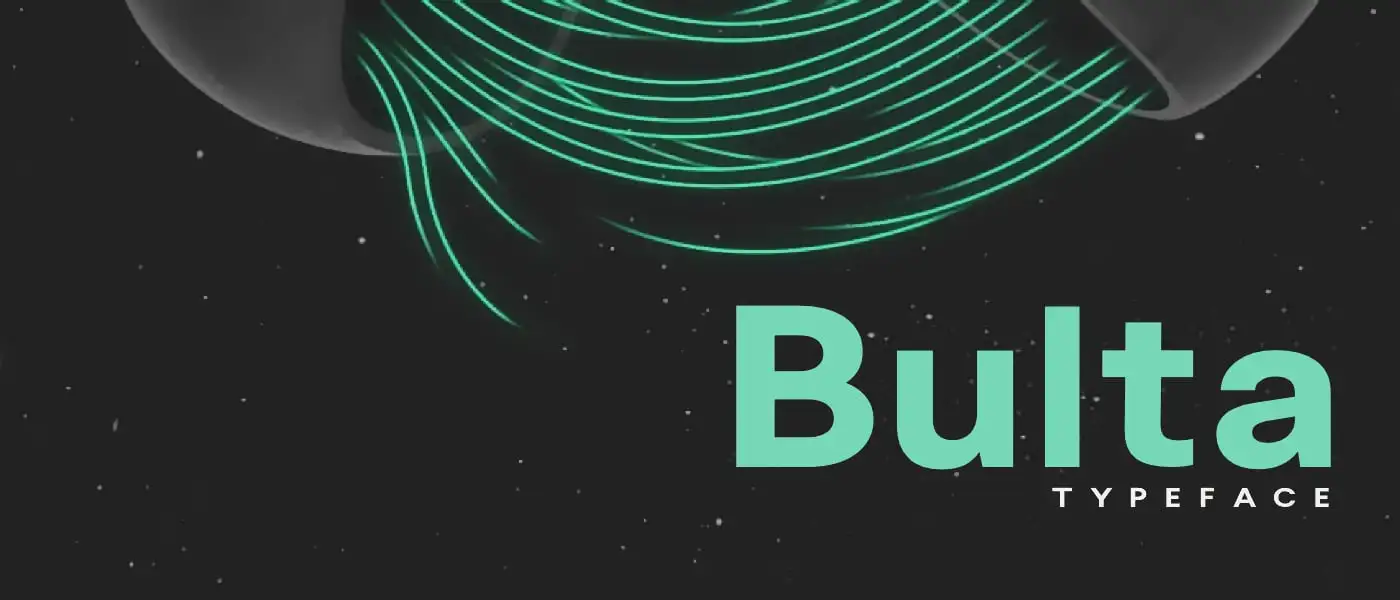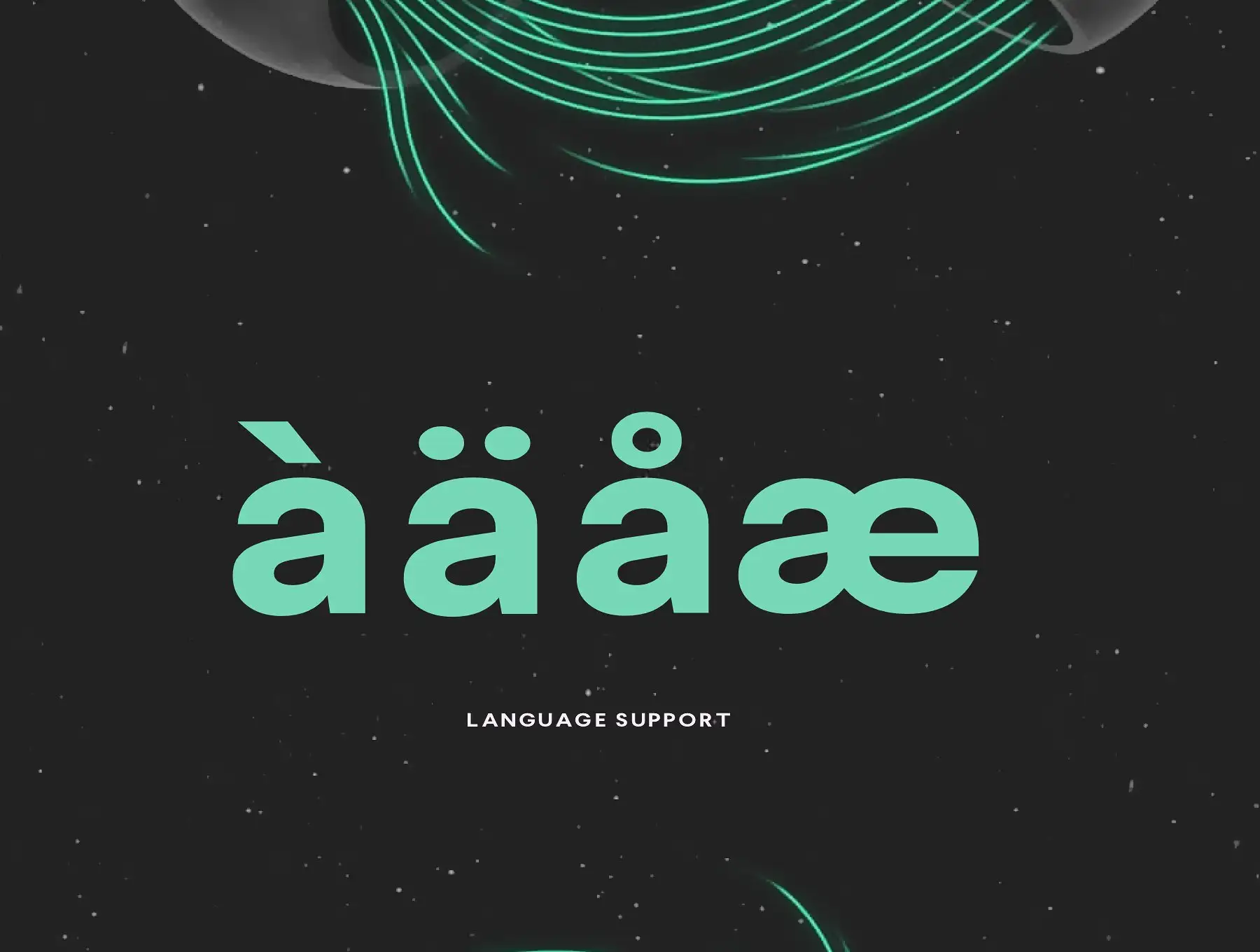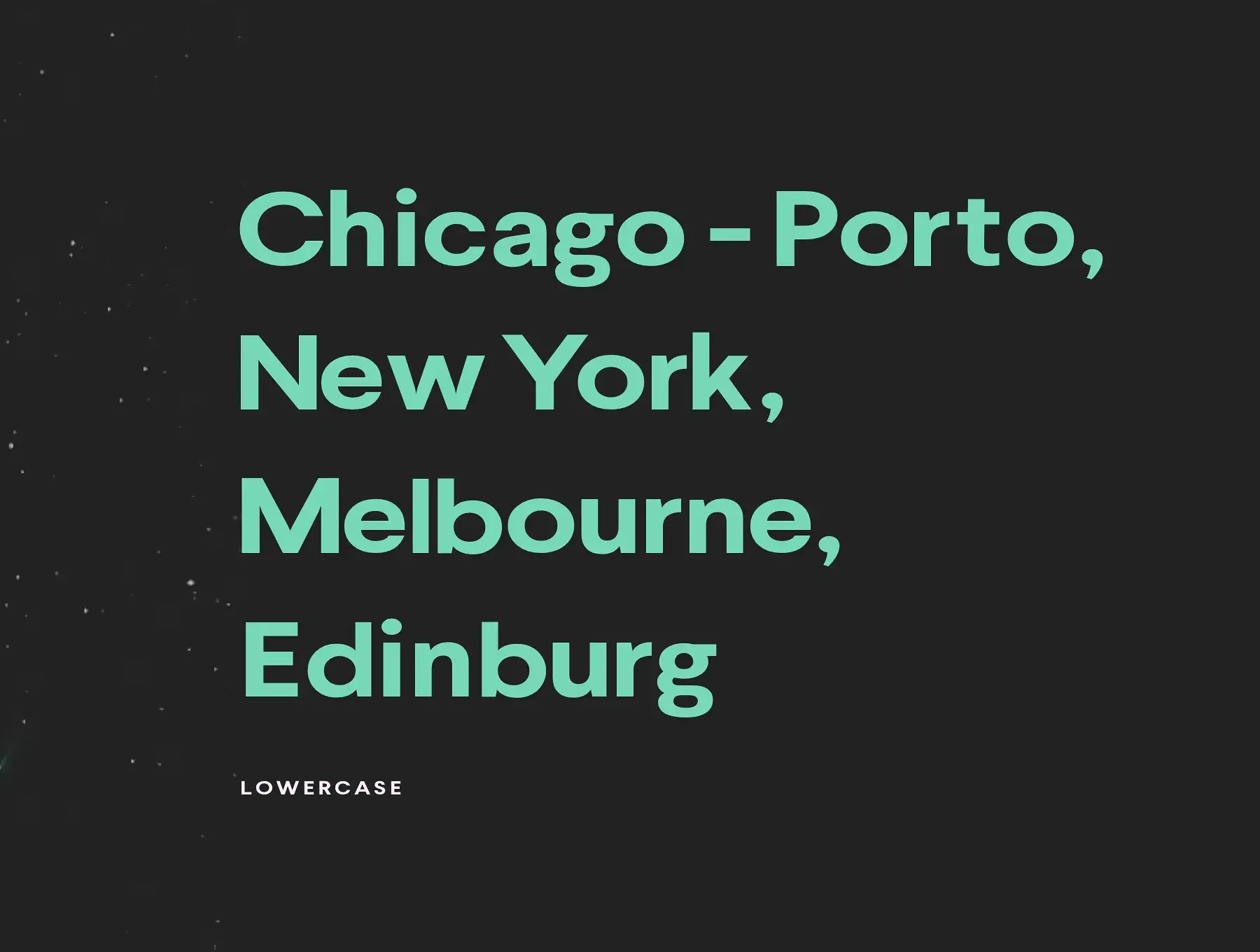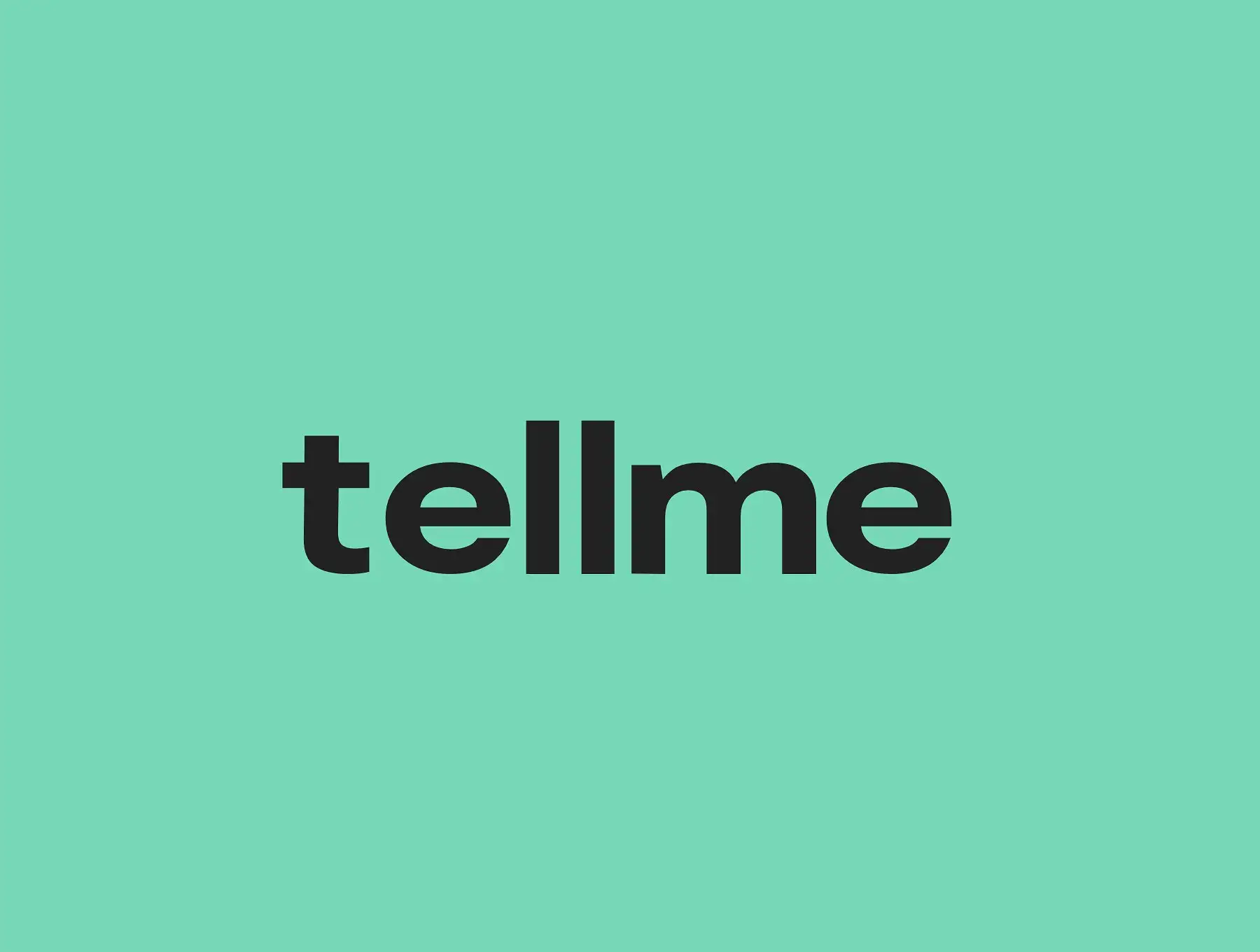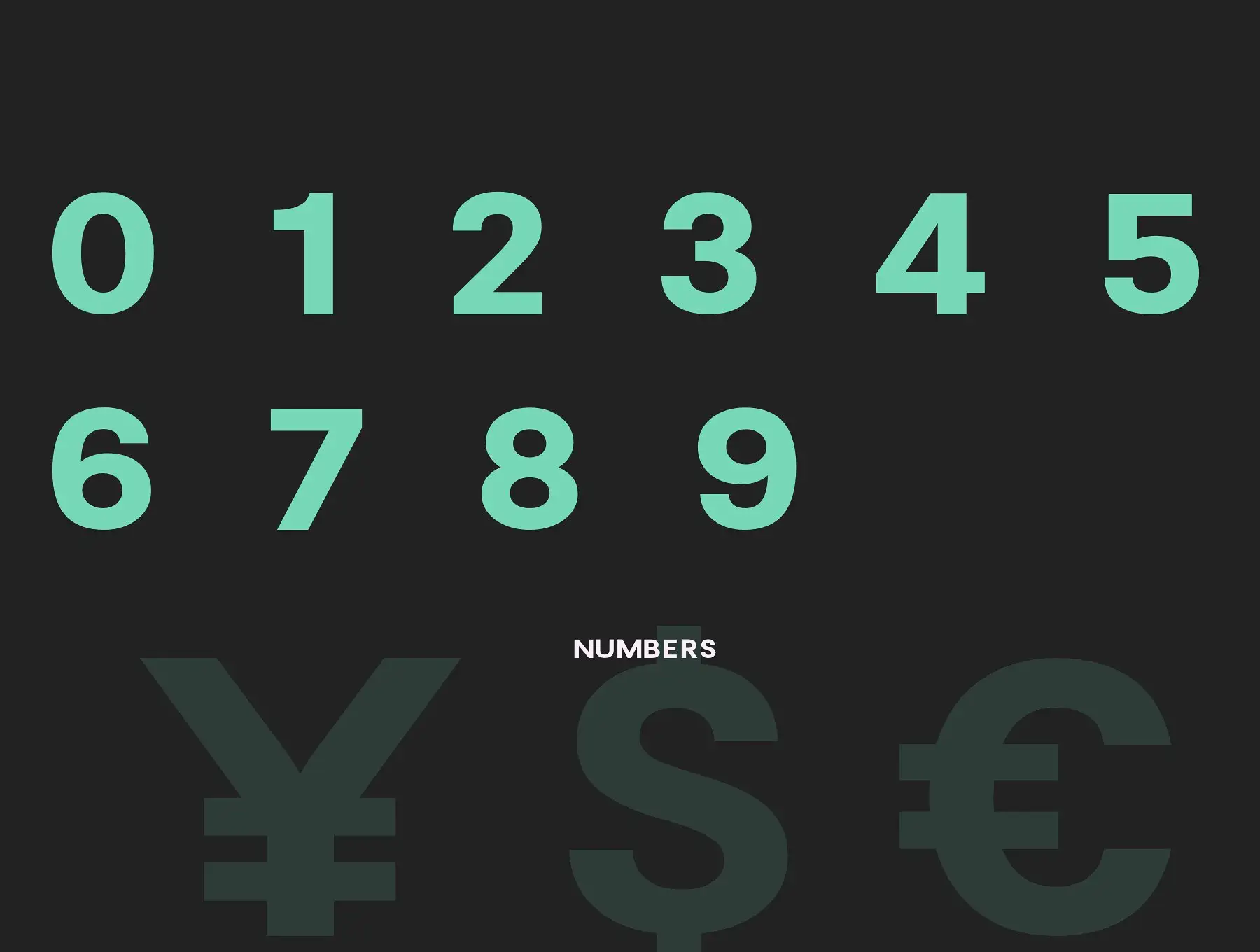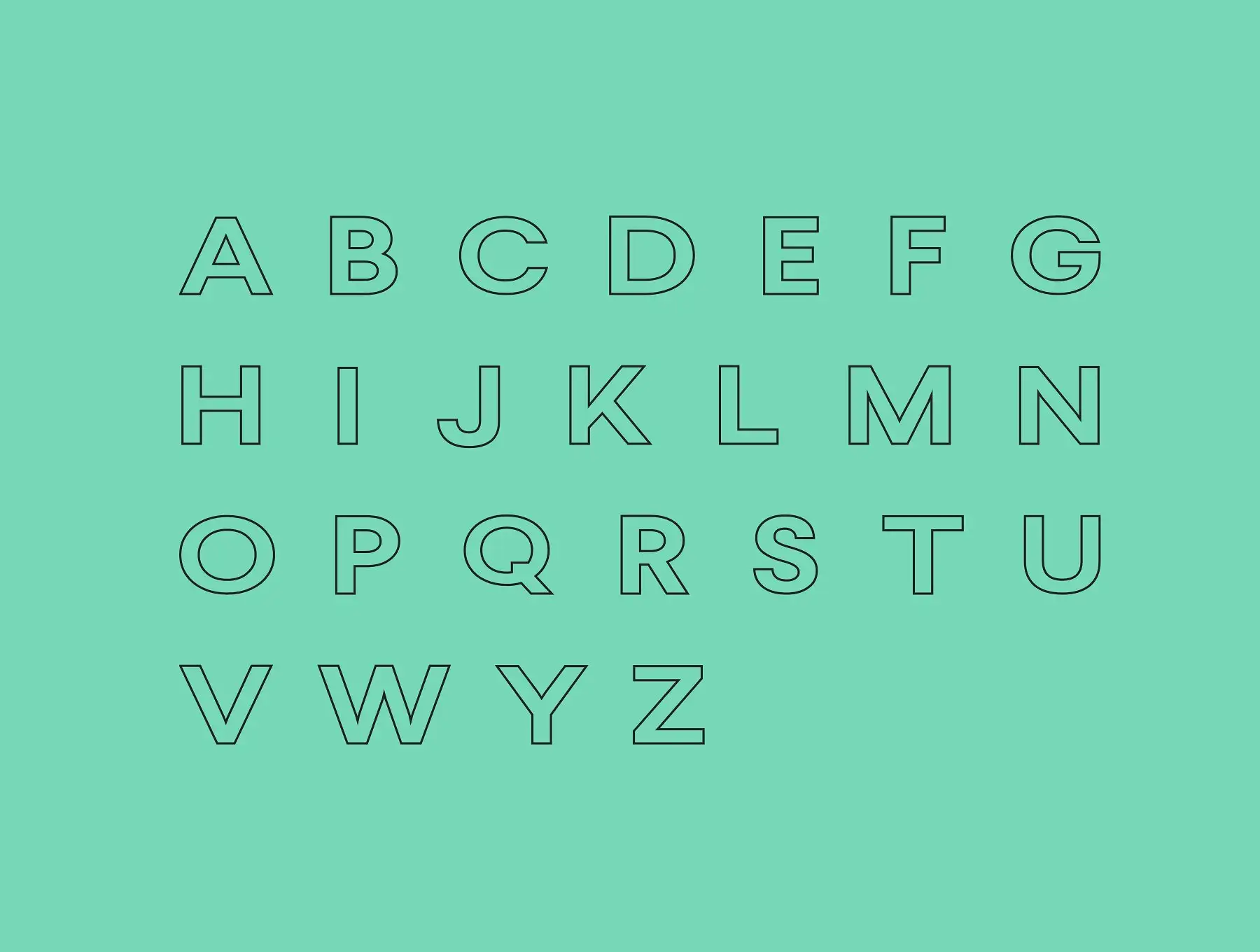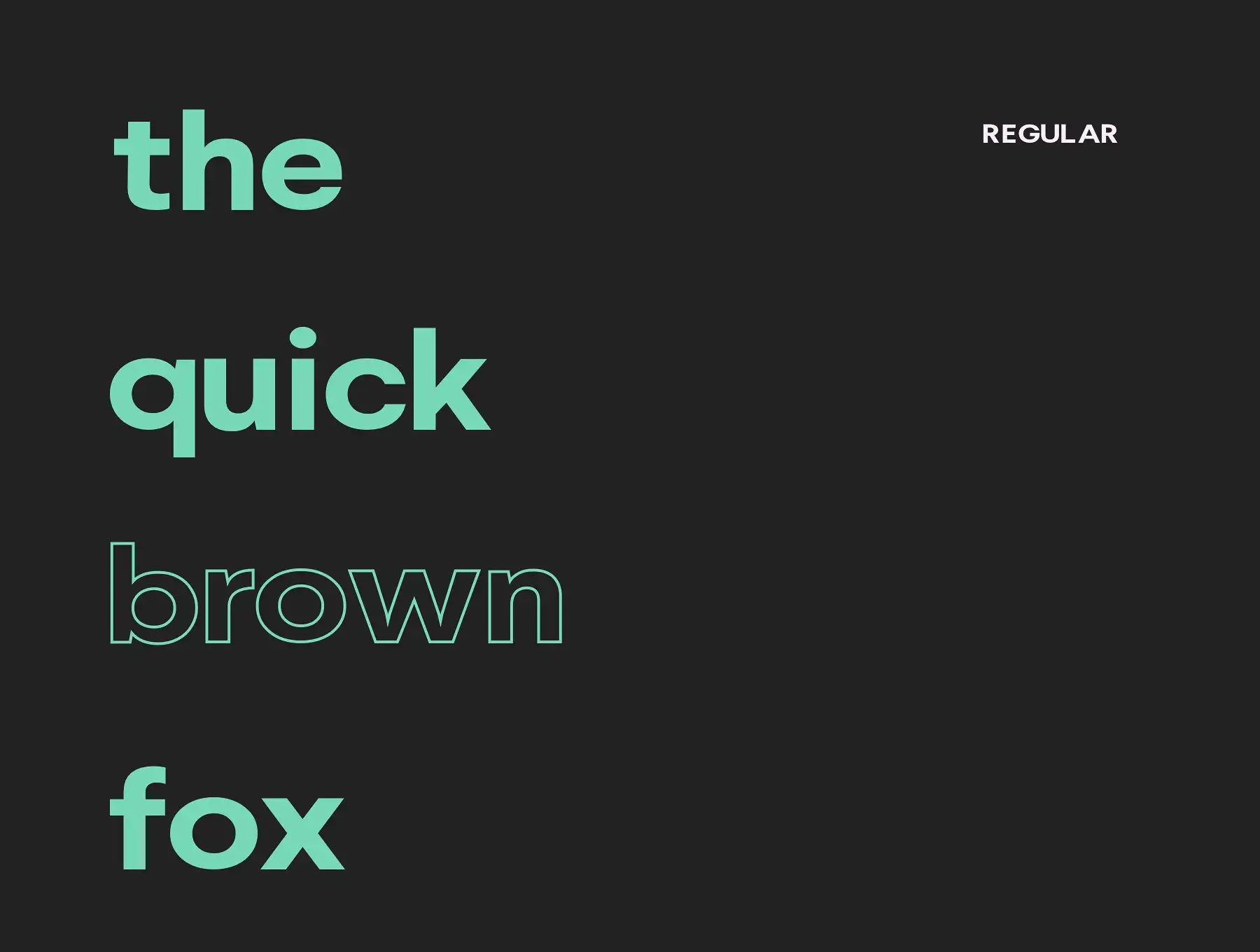
Bulta Typeface: A Clean and Vibrant Sans Serif Font
Are you looking for a modern sans serif font that adds a touch of elegance to your designs? Look no further than the Bulta Typeface. This clean and vibrant geometric font is perfect for a variety of creative projects, from eye-catching headlines to stylish branding.
Bulta is a minimal geometric sans serif font that includes all essential glyphs, including non-English characters. It’s designed to enhance your visual communication, making it ideal for headlines, posters, quotes, advertising, merchandise, social media posts, product packaging, and much more. Whether you’re working on a T-shirt design or a logo project, Bulta provides the versatility you need.
- ✅ Sans Serif Font → Offers a clean and modern aesthetic suitable for various applications.
- ✅ 190 Glyphs → Includes a comprehensive set of punctuation, symbols, and characters for diverse design needs.
- ✅ Uppercase, Lowercase & Numbers → Full character set ensures you can create any text you need.
- ✅ Non-English Latin Supplement → Supports a wide range of languages, making it accessible for international projects.
Why Choose Bulta Typeface
Bulta stands out due to its unique blend of minimalism and vibrancy. This font is not just about aesthetics; it’s designed to enhance readability and engagement in your designs. Trusted by designers worldwide, Bulta is perfect for anyone looking to make a statement with their typography. Its versatility ensures that it fits seamlessly into any creative project, whether for print or digital use.
| Character Set | Uppercase, Lowercase, Numbers, Punctuation, Symbols |
| Language Support | Non-English Latin Supplement |
- Does it support multiple languages?
Yes, Bulta includes non-English Latin characters for broader language support.